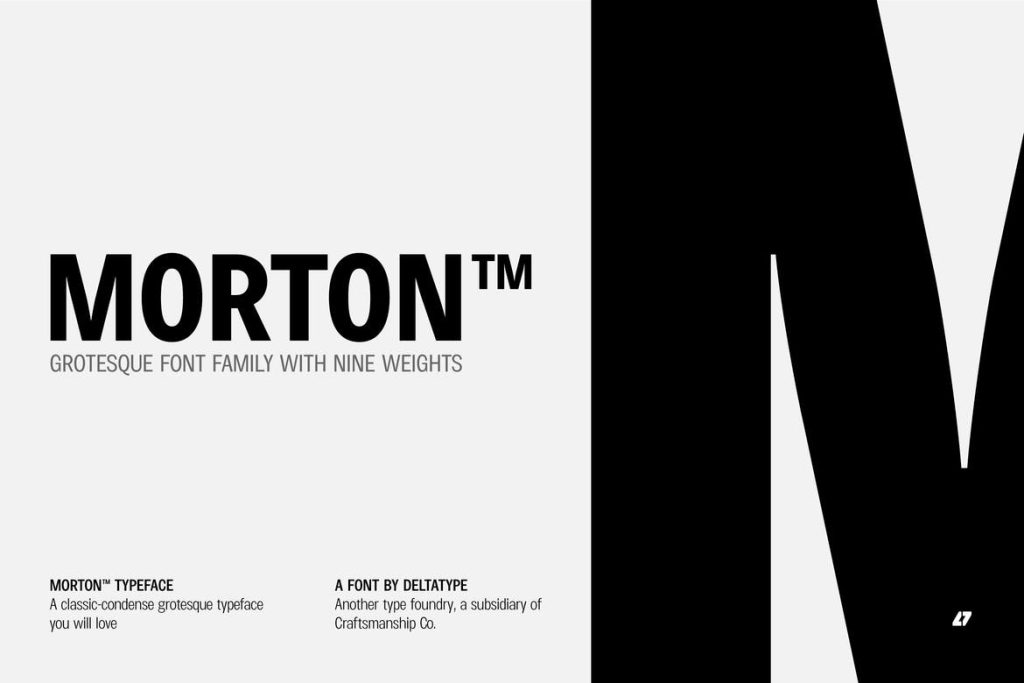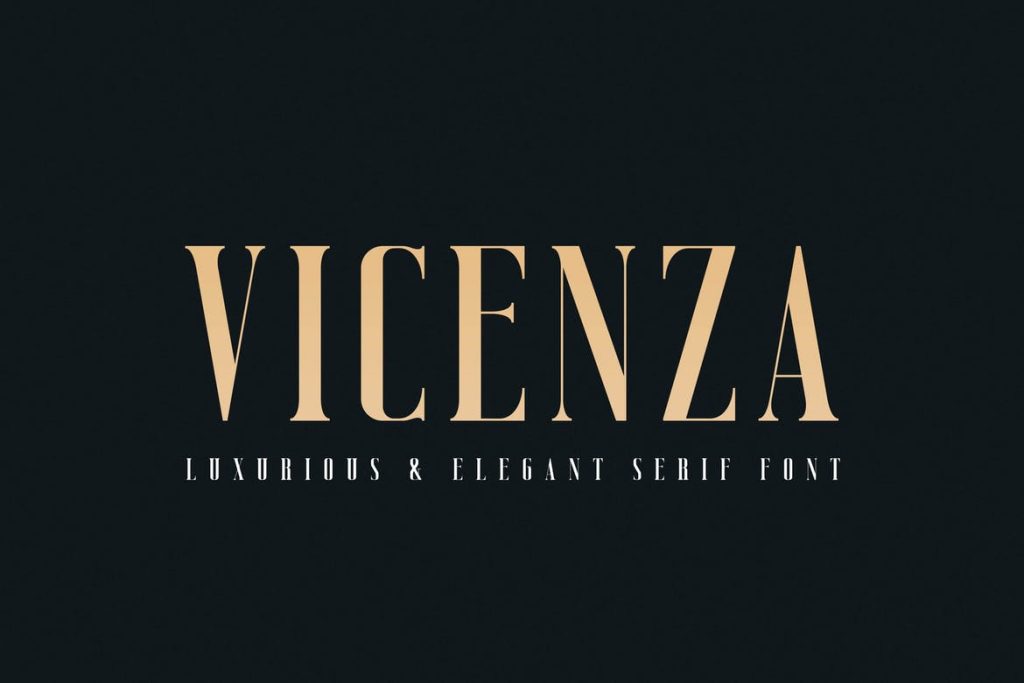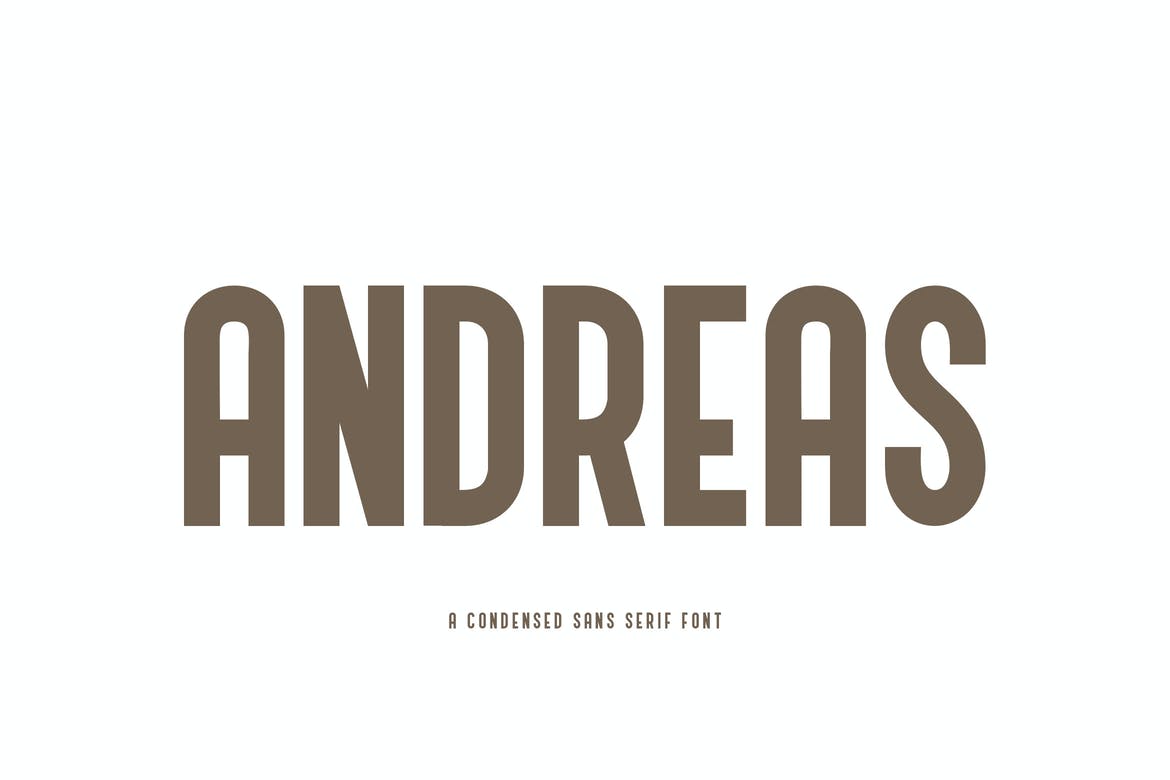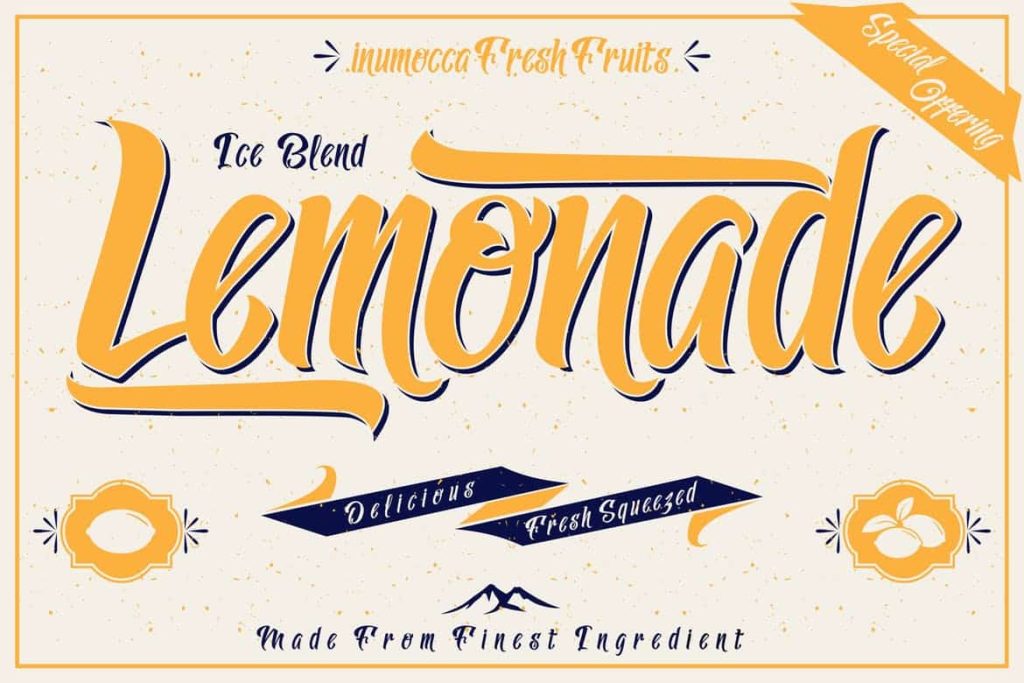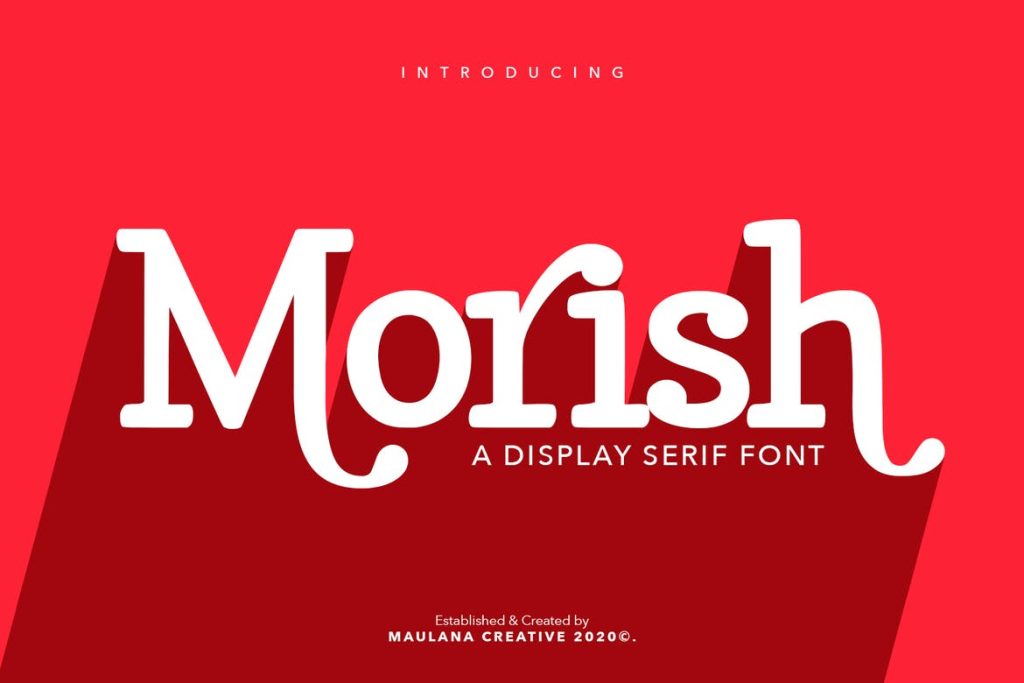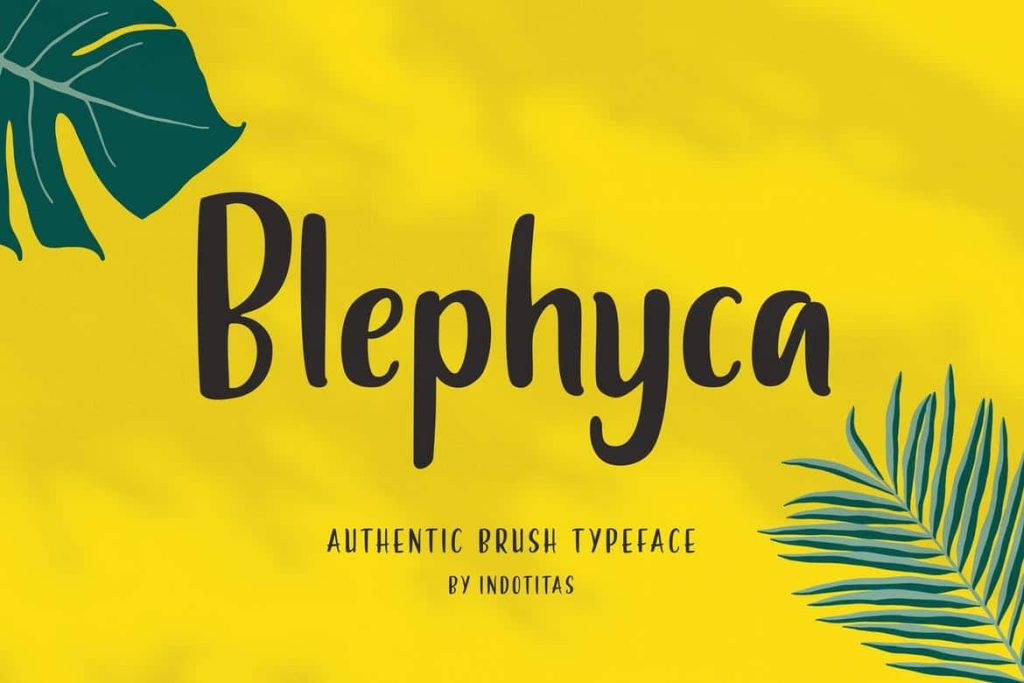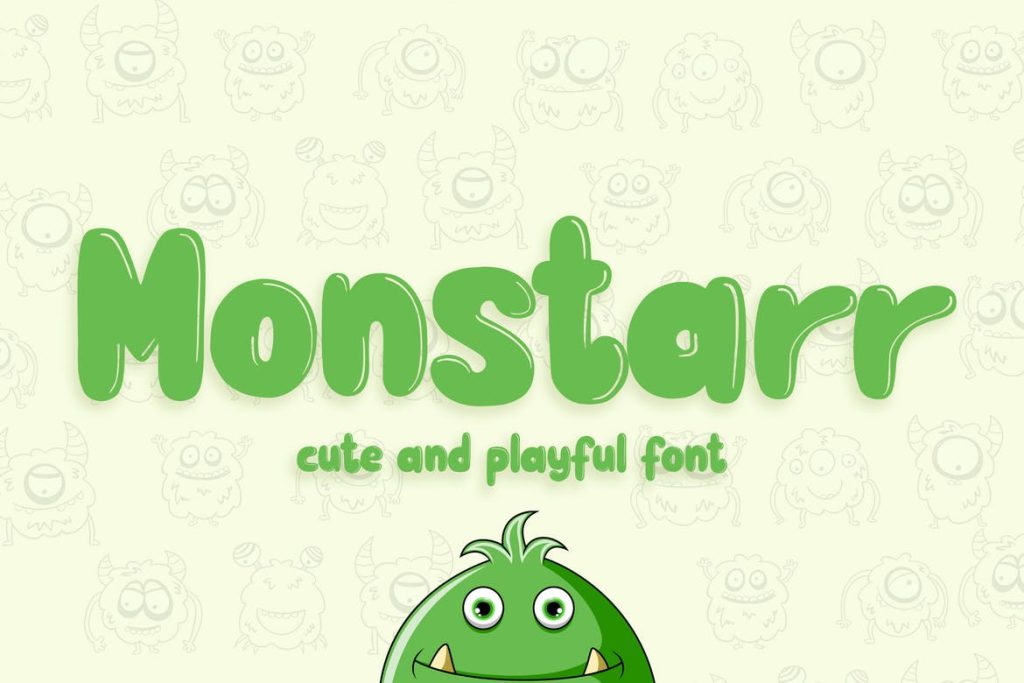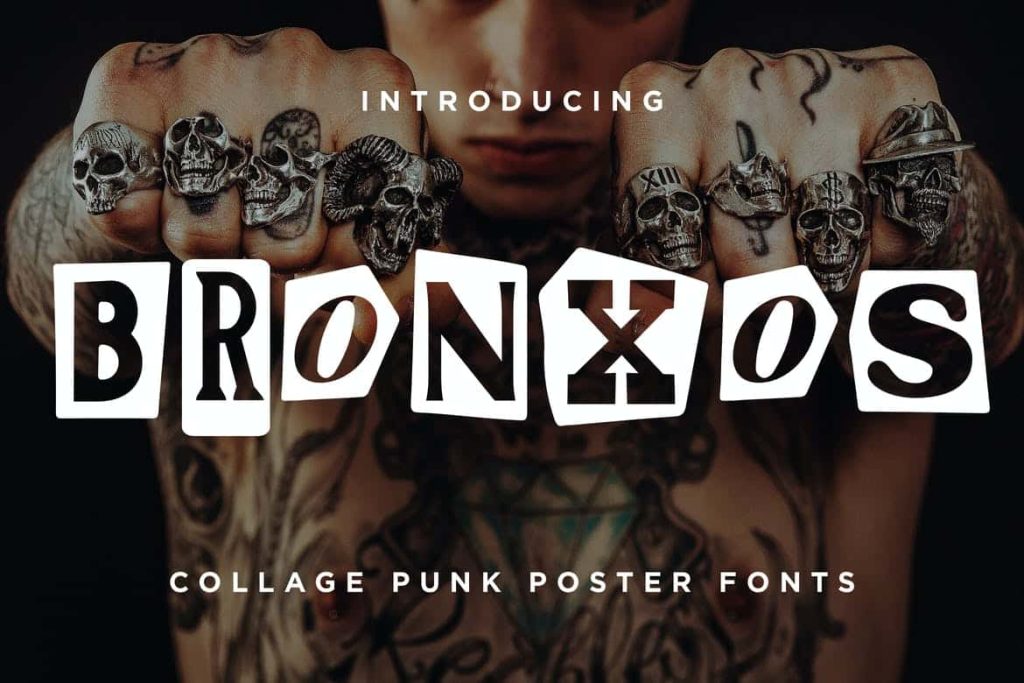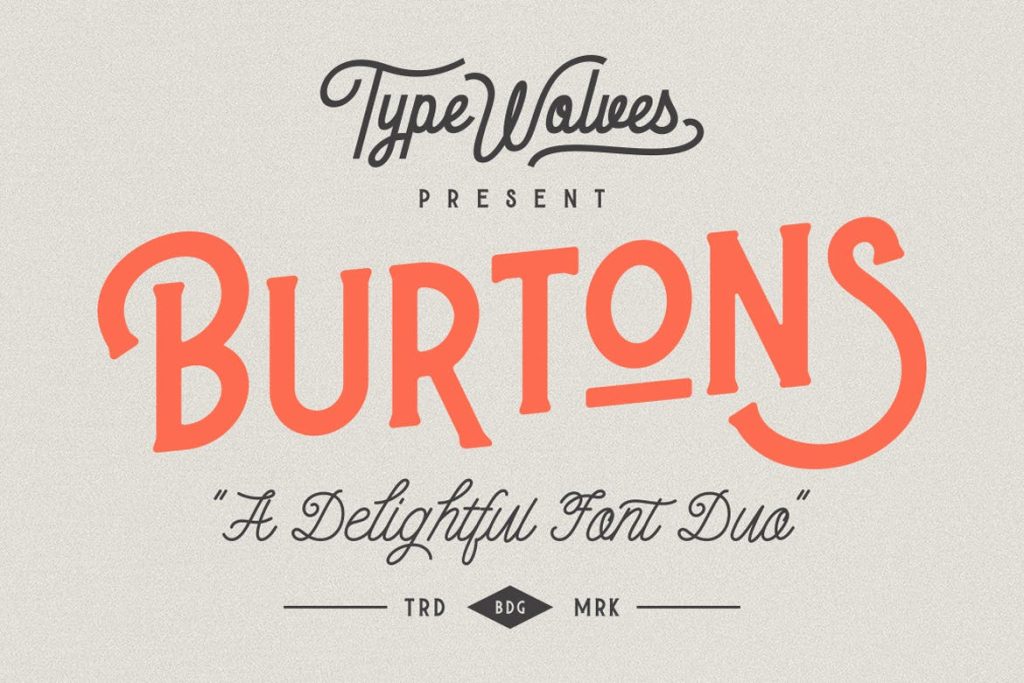
Tips for Choosing Fonts for Posters and Several Font Choices for Posters
Although it is difficult to choose a font that fits the poster design, here are some tips that you can use to choose the font.
1. Big and Bold
When compiling poster titles, website headers, banners, etc., you can try fonts using large sizes and bold font weights. Of course, in accordance with the goal so that the poster can attract attention, choose a large and bold font, but it must be remembered that not all fonts will be good if used in large sizes.
2. Use Themed Fonts
Of course, in making posters, we have a theme in the message to be conveyed, which is then adjusted to the poster design and the font to be used. Choose a font that has the same theme as your poster design. For example, use colorful and cute fonts for children’s themed posters.
3. Choose the Right Font Pair
Don’t forget the subtitles and body text in your poster. Choose a font that matches your large title font so that the poster looks good and is comfortable to look at.
4. Narrow Fonts Are Better
Very closely spaced fonts are also suitable if the poster title is too long so as not to spoil the poster’s design. However, you still have to be careful in choosing the right font with it so that it is still pleasant to see.
Here are some recommended fonts that are suitable for posters.
1. Andreas
3. Burtons
5. Rhinos rocks brush font
7. Vicenza
9. Bronxos – Collage Punk Poster Font
2. Blephyca
4. Lemonade
6. Monstarr
8. Morish
10. Morton